Why Choosing the Right Sans Serif Font Matters
The best sans serif fonts for branding can instantly change how customers perceive your business. Whether you're creating a logo, launching a startup, or refreshing your visual identity, choosing the right sans serif font is one of the most important branding decisions you'll make.
Long before customers read your tagline or explore your website, they subconsciously judge your business by its typography. That's why some of the world's biggest companies—including Google, Airbnb, Spotify, Uber, and Slack—have embraced clean sans serif typography for their visual identities.
Sans serif fonts communicate confidence, simplicity, innovation, and professionalism. They work beautifully across digital platforms, packaging, business cards, mobile apps, social media, and logos. Their clean geometry also makes them highly legible on modern screens, a key factor in today's digital-first marketplace.
For entrepreneurs, selecting the right typeface isn't simply a design decision—it's a branding investment.
In this guide, we've handpicked 25 outstanding sans serif fonts available on Creative Fabrica, highlighting where each font excels and how you can use it to strengthen your brand identity.
25 Best Sans Serif Fonts for Branding, Logos, and Modern Design
1. Sugar Magic
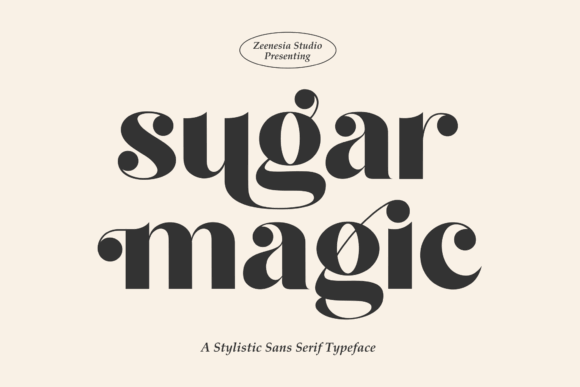
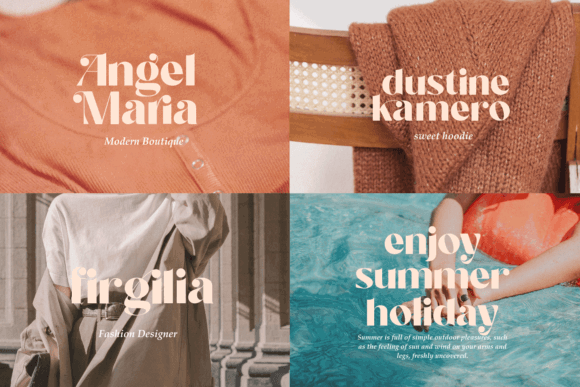
One of Creative Fabrica's most recognizable sans serif fonts, Sugar Magic combines elegance with simplicity. It features balanced proportions, generous spacing, and smooth curves that immediately create a premium appearance. Creative Fabrica highlights it as a strong choice for complete branding suites, from logos to packaging.
Best for
- Boutique brands
- Fashion labels
- Cosmetics
- Lifestyle products
- Premium packaging
Pros
- Extremely versatile
- Excellent logo readability
- Elegant uppercase characters
- Modern aesthetic
2. Zurich
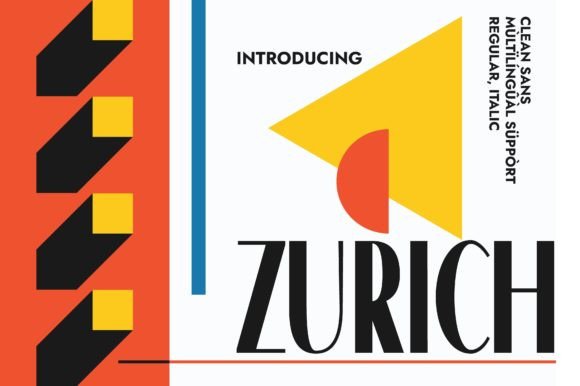
Zurich is a geometric sans serif that looks expensive without trying too hard.
Its structured letterforms make it ideal for companies wanting a confident visual identity.
Creative Fabrica recommends Zurich for packaging and professional branding because of its clean geometric construction.
Perfect for
- Consulting firms
- SaaS companies
- Finance
- Real estate
- Architecture
3. Helios
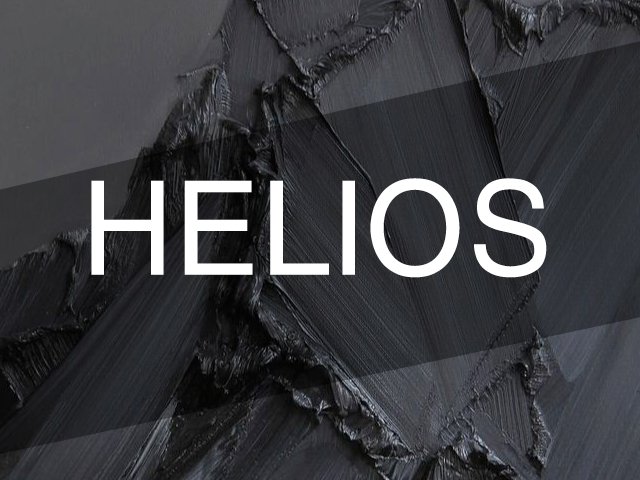
Helios is built around minimal geometry.
Every character feels intentional.
Nothing looks excessive.
That makes it a fantastic option for startups that want to communicate innovation and simplicity.
Recommended uses include:
- App logos
- Technology products
- AI startups
- Software landing pages
- UI design
4. Glamour Absolute
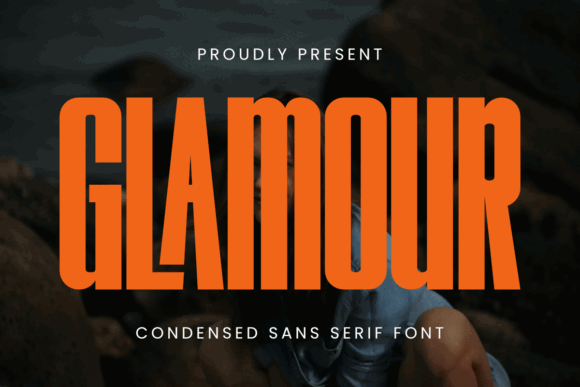
Despite its fashionable name, Glamour Absolute remains surprisingly readable.
The slightly elongated characters create an upscale appearance without sacrificing usability.
Ideal industries include:
- Beauty
- Luxury retail
- Jewelry
- Interior design
- Wedding brands
5. Northwelly Sans
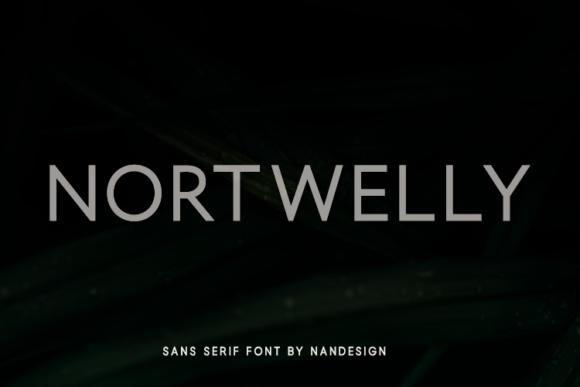
Northwell Sans blends geometric construction with softer curves.
The result is a font that feels approachable while maintaining professionalism.
Entrepreneurs love fonts that balance friendliness with authority, making this an excellent choice for:
- Personal brands
- Marketing agencies
- Coaches
- Online educators
6. Briston
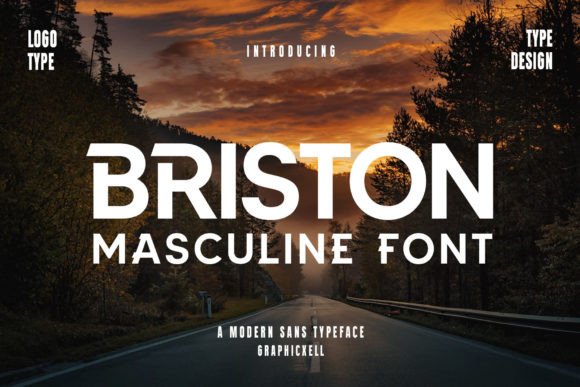
If your logo needs impact, Briston delivers.
The heavier letterforms perform exceptionally well across both digital and printed materials.
Especially useful for:
- Sports brands
- Fitness
- Automotive
- Gaming
- Outdoor companies
7. Duskersquare Font
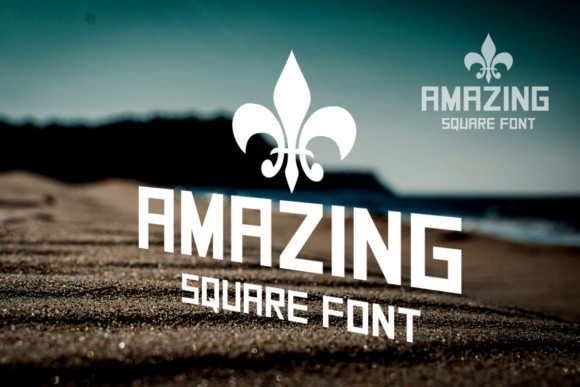
Duskersquare Font introduces subtle rounded terminals that make every word feel approachable.
Rounded sans serif fonts have become increasingly popular among SaaS businesses because they project friendliness without losing credibility.
Ideal for:
- Fintech
- Mobile apps
- Subscription services
- Healthcare startups
8. Fingard Font
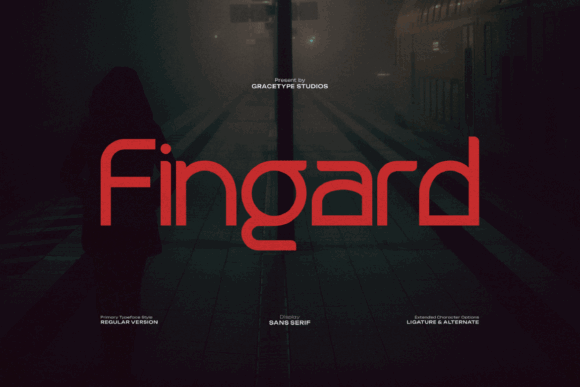
Fingard Font embraces minimalism.
There's almost no unnecessary detail.
This clean approach makes logos appear timeless instead of trendy.
Best applications:
- Design agencies
- Creative studios
- Portfolios
- Photography brands
9. Morrow Font
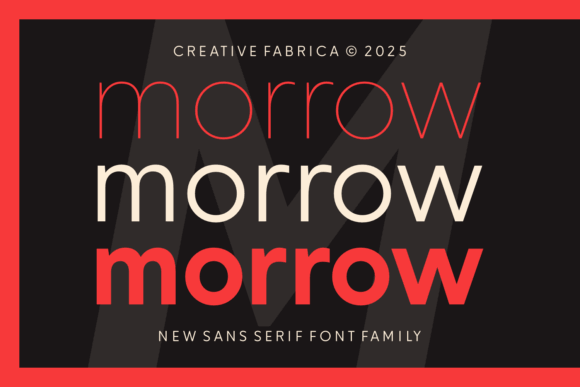
Inspired by modern geometric typography, Morrow Font offers outstanding flexibility.
Its multiple weights allow designers to build consistent visual hierarchies across websites, brochures, presentations, and advertising campaigns.
Why designers like it:
- Multiple weights
- Excellent spacing
- Clean numerals
- Strong readability
10. Morgane Font
Tall.
Bold.
Confident.
Morgane Font dominates headlines while maintaining impressive clarity.
Yes. Geometric sans serif fonts continue to dominate modern branding because they offer timeless simplicity, excellent readability, and versatility across digital and print applications.